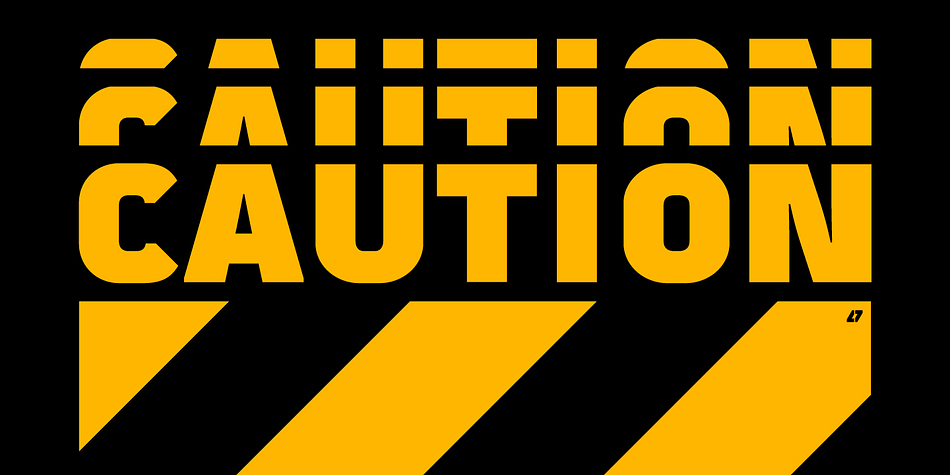
Martian B
Designed by Kwanchai Akkaratammagul, Martian B is a sans serif font family. This typeface has nine styles and was published by Deltatype.
Martian B is a sans-serif based typeface, inspired by industrial signs with semi-modular structure, suitable for using in a wide range.
Available in nine weights from Thin to ExtraBlack.
Use well with a sign into small print or the web which support many languages with extended latin glyphs with the standard of Adobe Latin 4 and world ready supported.
Displaying the beauty and characteristics of the Martian B font family.
Highlighting the Martian B font family.
Martian B font family sample image.
Martian B is a a nine font family.
Martian B font family example.
Martian B is a sans-serif based typeface, inspired by industrial signs with semi-modular structure, suitable for using in a wide range. Available in nine weights from Thin to ExtraBlack. Use well with a sign into small print or the web which support many languages with extended latin glyphs with the standard of Adobe Latin 4 and world ready supported.